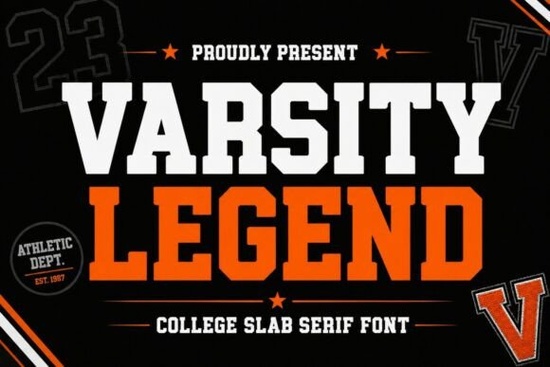
If you need a typeface that shouts team spirit, Varsity Legend Font is the collegiate slab serif you’ve been looking for. Inspired by classic university sports, championship teams, and vintage athletic branding, Varsity Legend brings bold block letters and strong geometric shapes to any design. Its timeless letterman-jacket character makes it a top pick for sports logos, team jerseys, school merchandise, and retro poster designs.
What gives Varsity Legend its authentic varsity look?
This font’s robust slab serifs, consistent stroke widths, and solid vertical structures immediately evoke classic college apparel. The uppercase letters feel expanded and commanding, while the lowercase keeps a clean, readable silhouette. Subtle details like the angled terminals on C and G or the sturdy crossbars on A and H add just enough vintage personality without feeling gimmicky. The result is a font that works equally well for a football helmet decal or a crafty spirit-wear iron-on.
While exploring varsity-style slab serif collections, you’ll appreciate the careful spacing that keeps it legible on jersey numbers and small social media badges.
What kinds of projects benefit most from Varsity Legend?
Varsity Legend shines in any context where you need to communicate strength, tradition, and competitive energy. Here are a few ways designers and small business owners put it to work:
- Team jerseys and sports apparel – Numbers and player names look bold and professional on mesh fabric.
- School and college merchandise – Spirit wear, hoodies, mugs, and pennants gain an official, vintage campus feel.
- Emblems, badges, and mascots – Combine with a fierce mascot graphic to create a complete athletic identity.
- Event posters and banners – Homecoming and pep rally posters need a typeface that grabs attention across the room.
- Print-on-demand designs – Whether you sell on Etsy, Redbubble, or your own Shopify store, this font helps your sports-themed products stand out without looking generic.
- Retro branding and logos – Give a modern brand a nostalgic sporty twist without losing professionalism.
How does Varsity Legend pair with other typefaces?
Pairing a loud display font like Varsity Legend with the right supporting typeface keeps your layout readable and polished. A clean, neutral sans-serif such as a geometric or humanist sans works beautifully for body copy, taglines, and subheadings. The strong contrast between the chunky serif and a crisp sans-serif makes your message pop without visual clutter. For a total throwback vibe, you could even try pairing it with a condensed gothic font for secondary information, but be careful not to overload the design.
A good rule of thumb: let Varsity Legend handle the hero text (team name, event headline, or logo) and let a simpler font carry any longer descriptions. You’ll get that classic varsity feel while keeping everything easy to read.
Does Varsity Legend stay readable at small sizes?
Like most display-oriented slab serifs, Varsity Legend is built for scale. It reads clearly at larger point sizes t-shirt fronts, poster titles, and car decals but can still hold up in smaller settings with a bit of care. For jersey back numbers or social media profile icons, check the spacing and avoid using it below 14–16 px on screen. Slight adjustments to tracking and leading help maintain legibility when the font gets tiny. If you need a companion for fine print, stick with the sans-serif pairing mentioned above.
Can I use Varsity Legend for my Etsy or Shopify store?
Absolutely. Print-on-demand sellers love varsity-style fonts because they sell well year-round think homecoming season, sports tournaments, and team spirit events. With Varsity Legend, you can create custom crewneck designs, tote bags, and wall art that appeal to parents, students, and alumni. The font’s broad appeal also works for generic “Mom of a Senior” or “Game Day” slogans. Just remember to mock up your design on the product image so buyers see exactly how the bold letters will look on the final item.